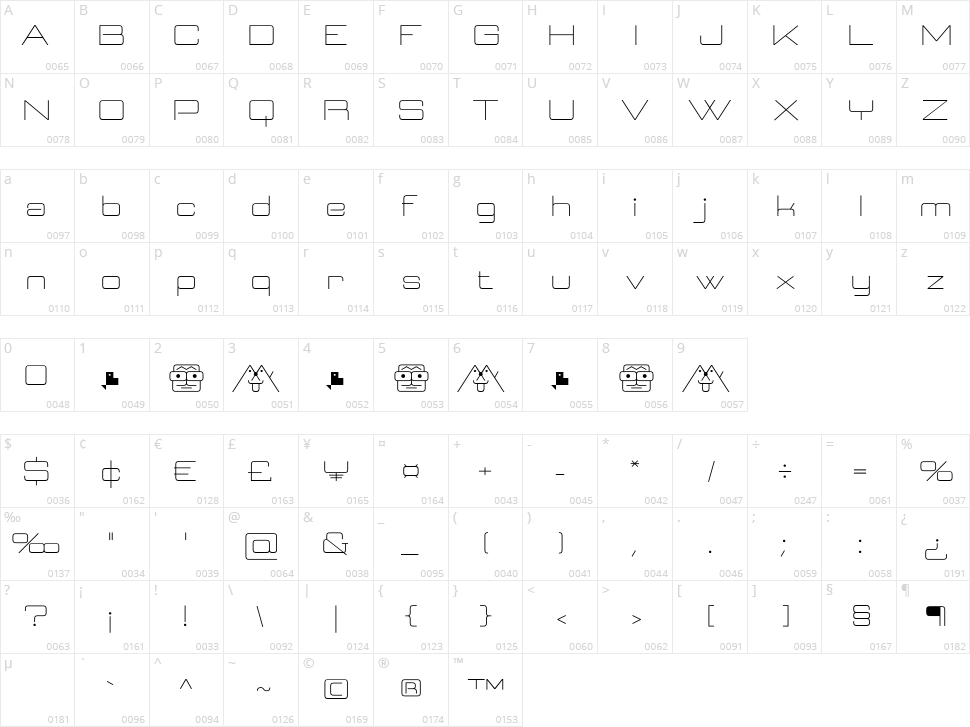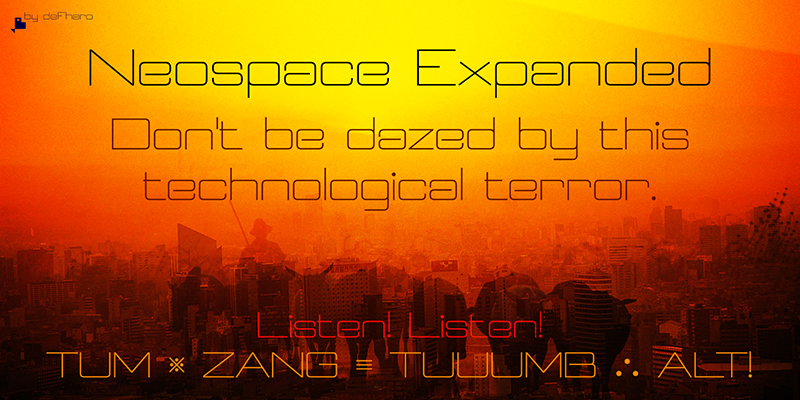
Neospace
Note of the author Neospace is an avant-garde typeface designed for lovers of technology and science fiction. With its elegant geometric minimalism, Neospace redefines typographic aesthetics with a perfect fusion between modern and futuristic.
Geometric Inspiration: Each Neospace character has been sculpted from the letter "O", using the mathematical proportions of the Fibonacci sequence in curves, metrics and kerning, adding a golden ratio to each character. This meticulous approach ensures exceptional readability and a unique aesthetic that evokes a sense of order and precision.